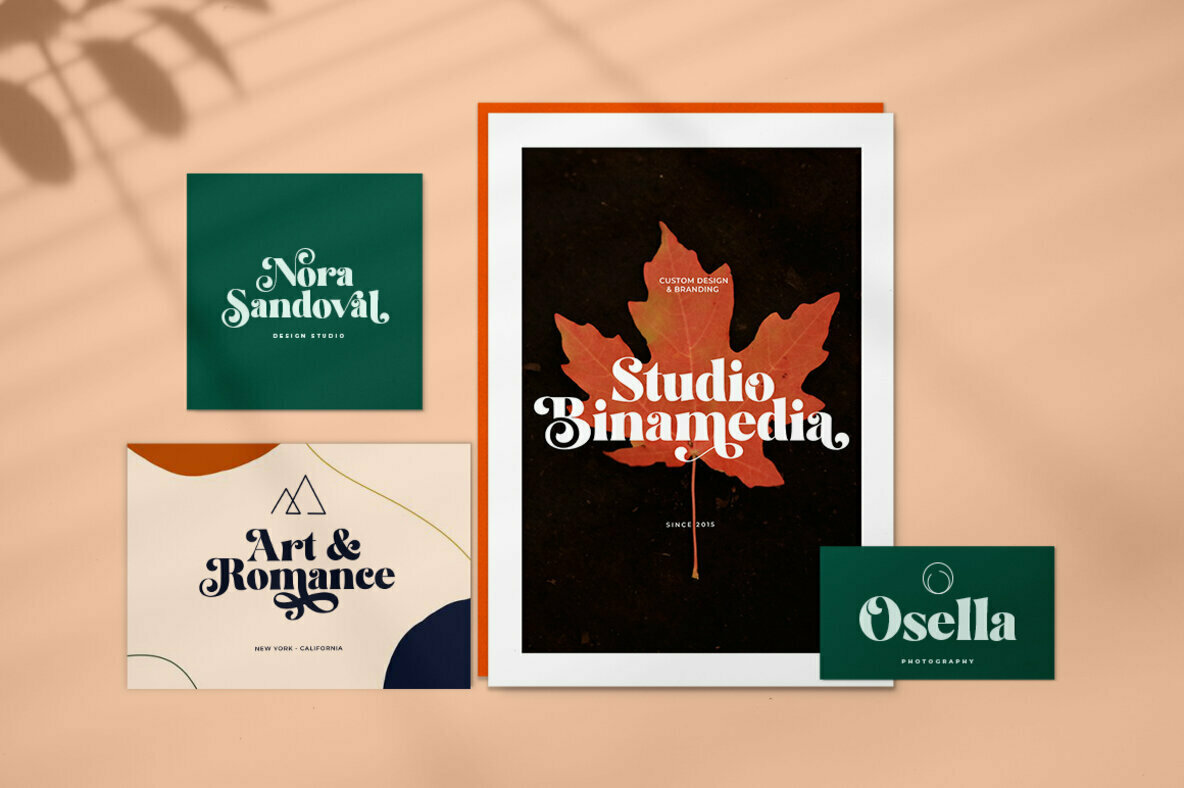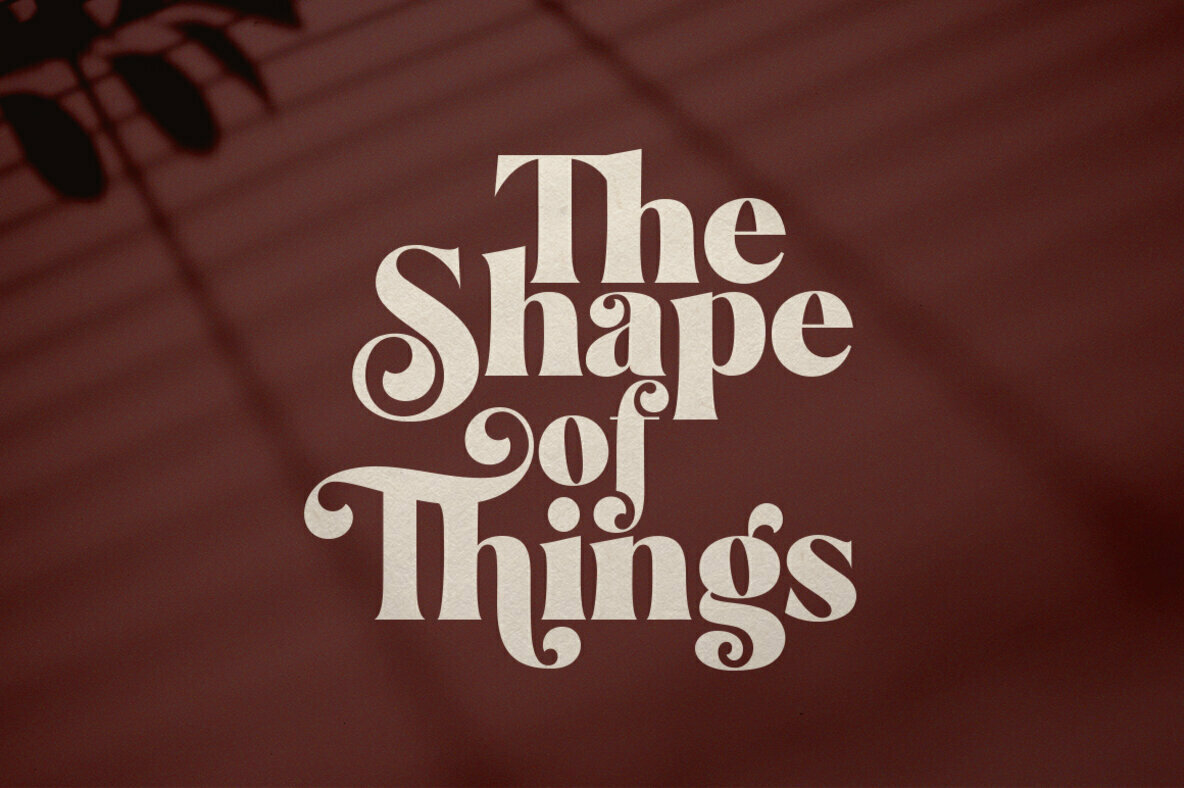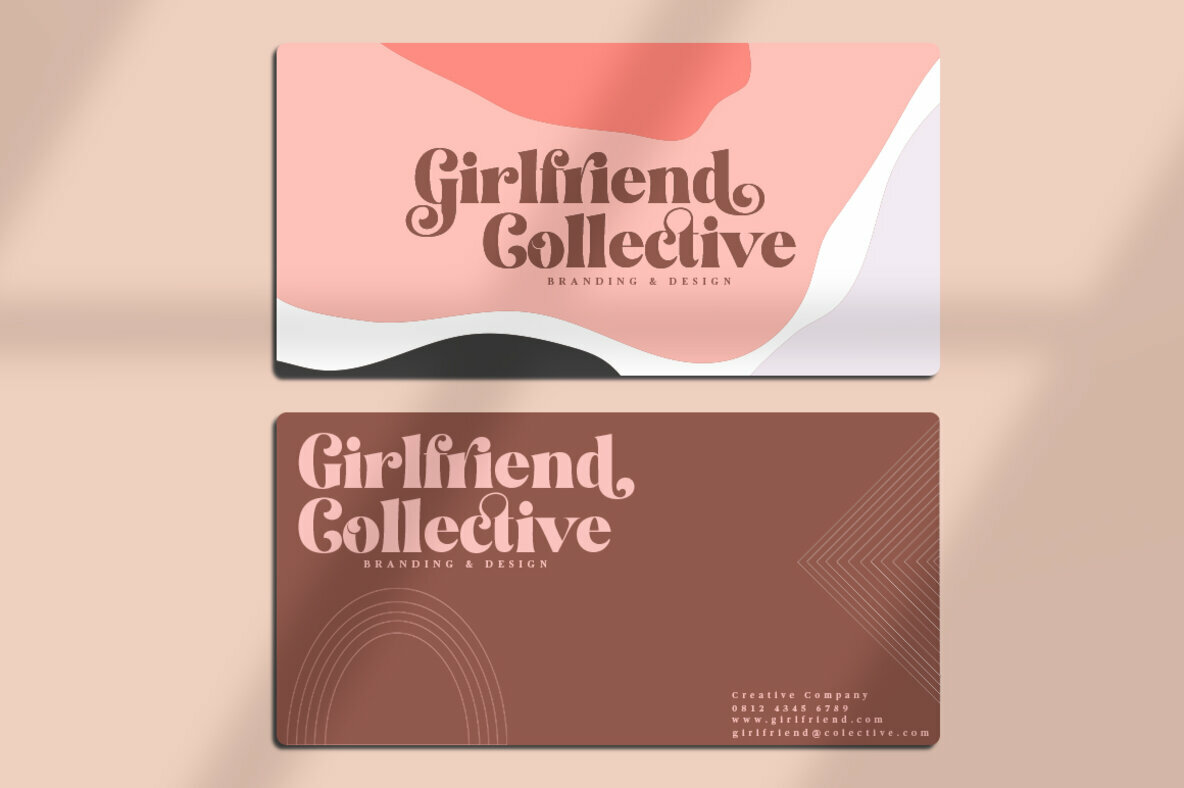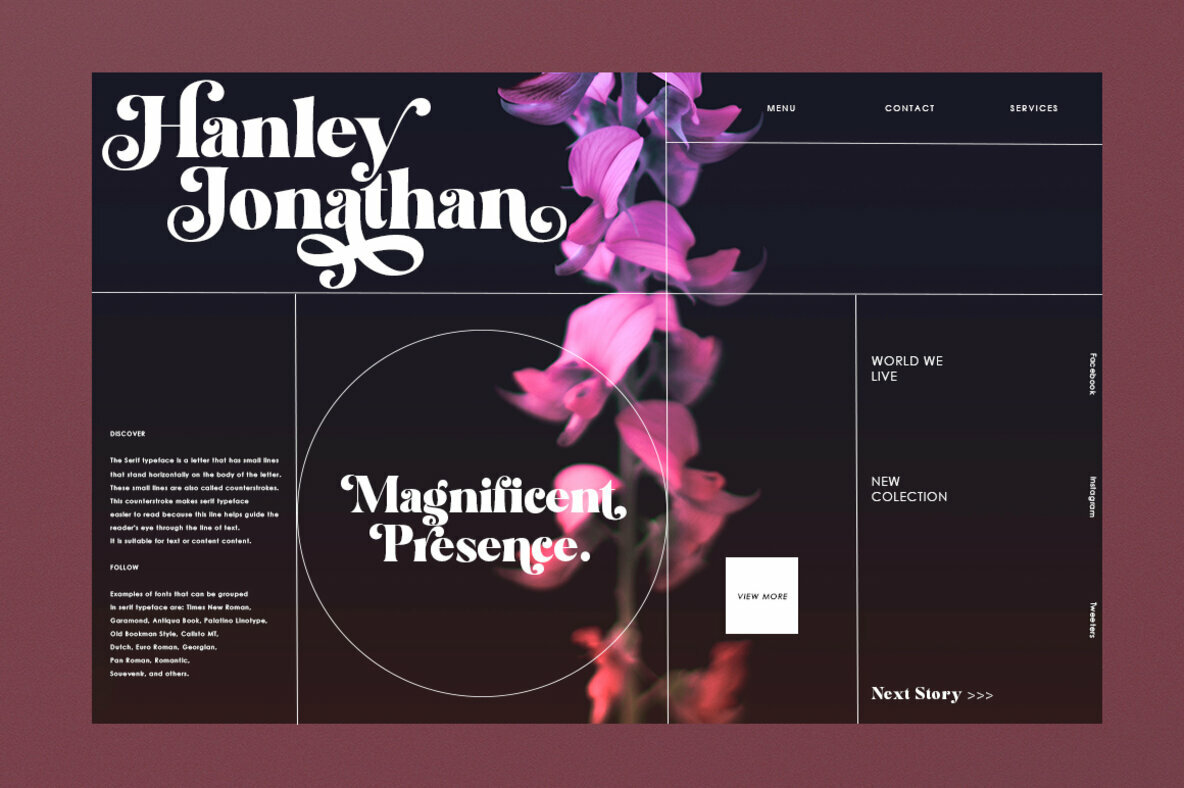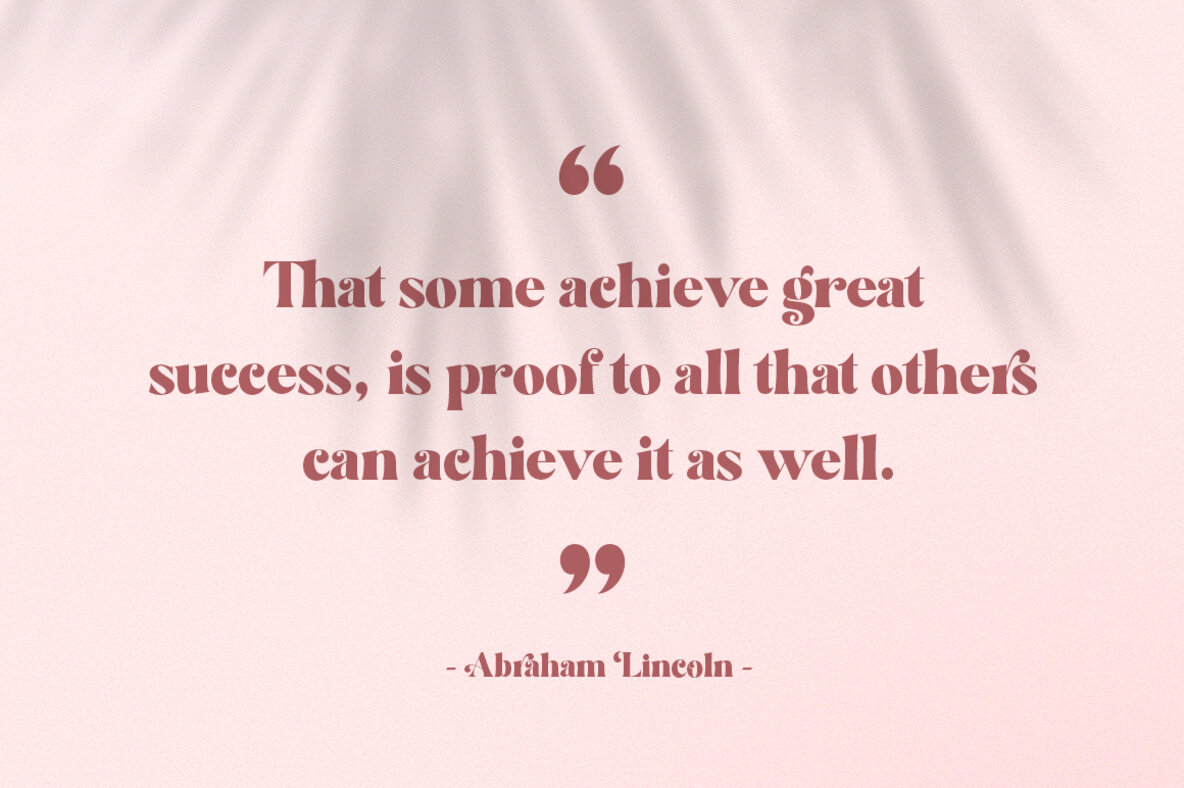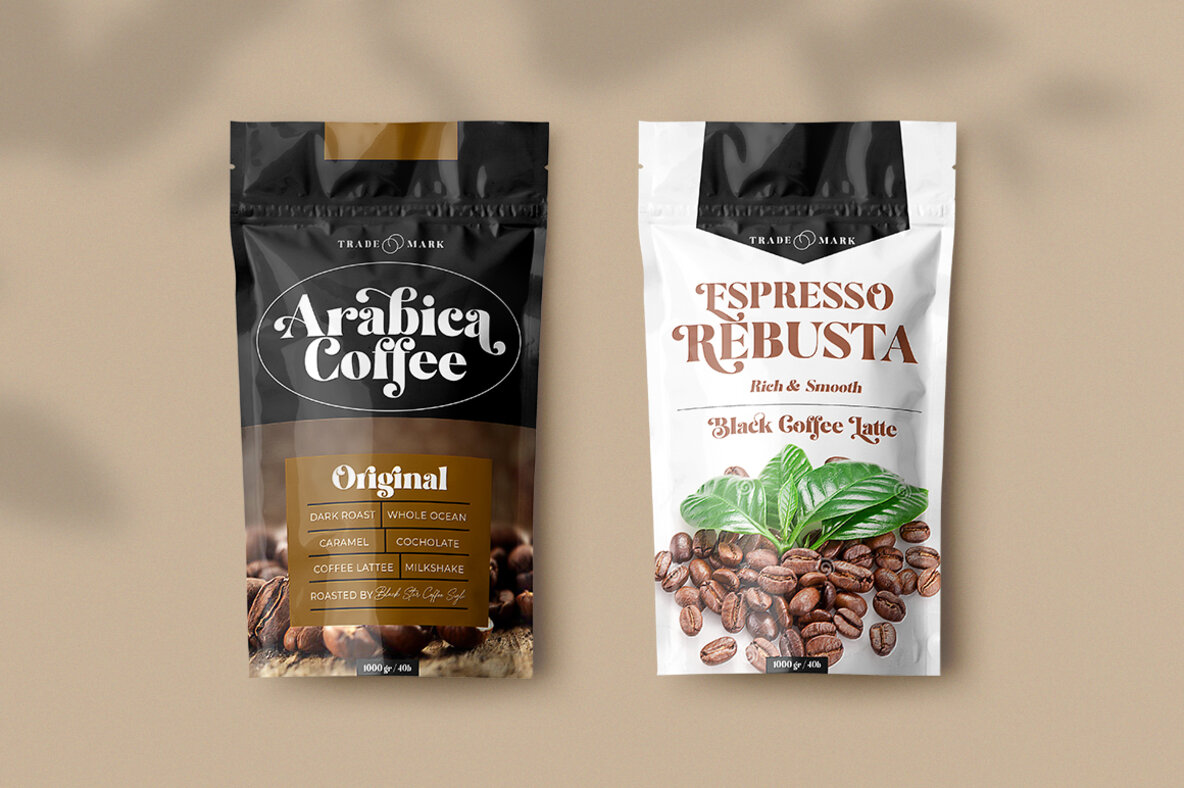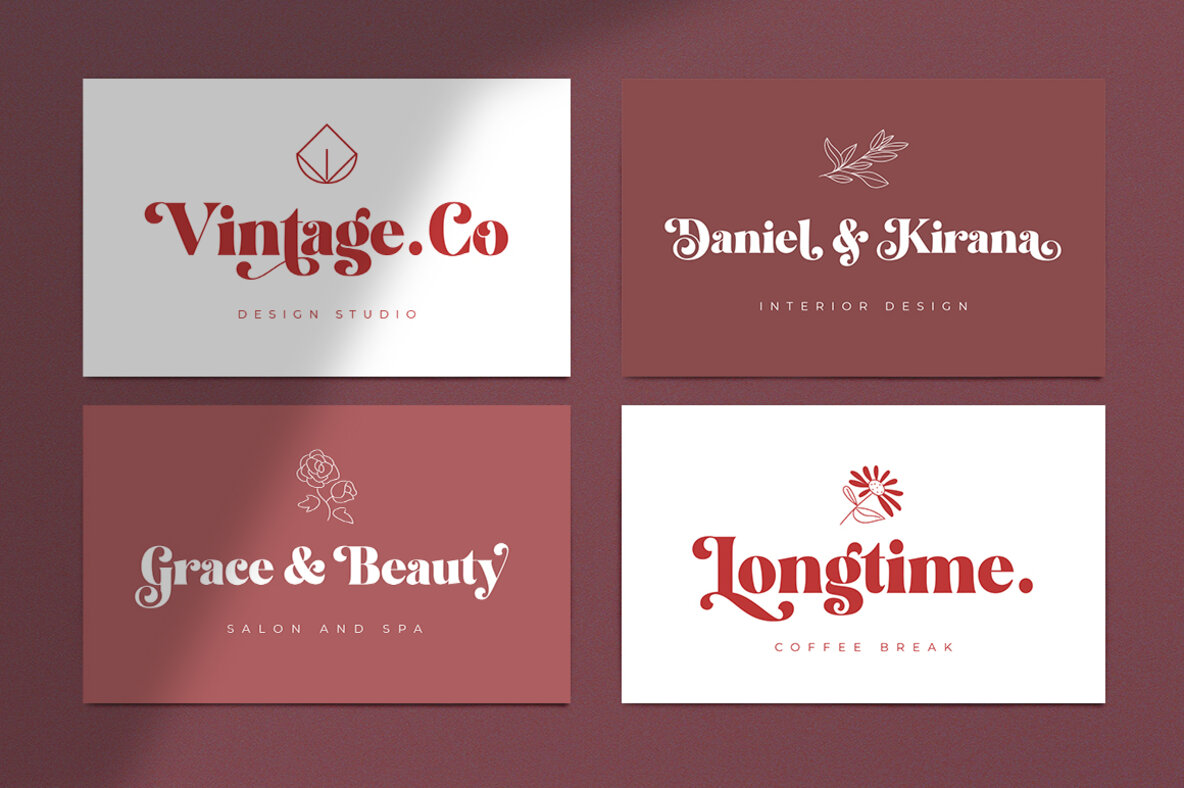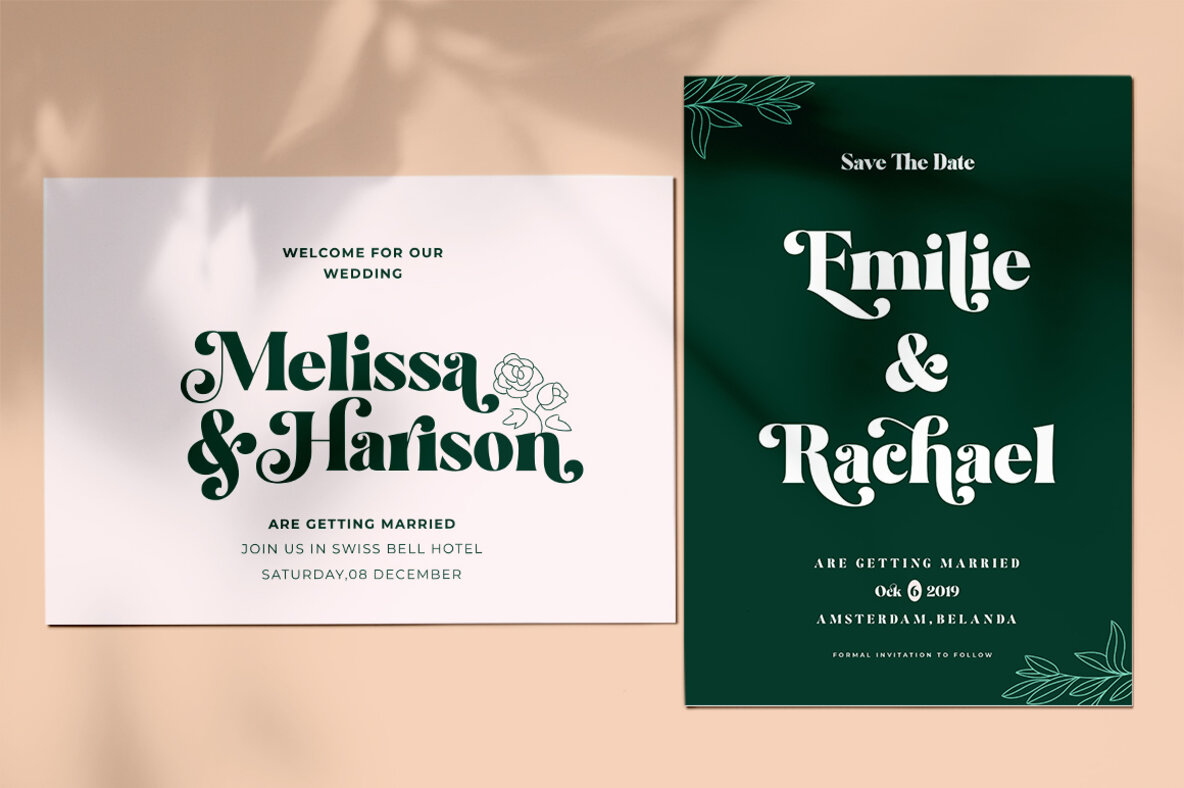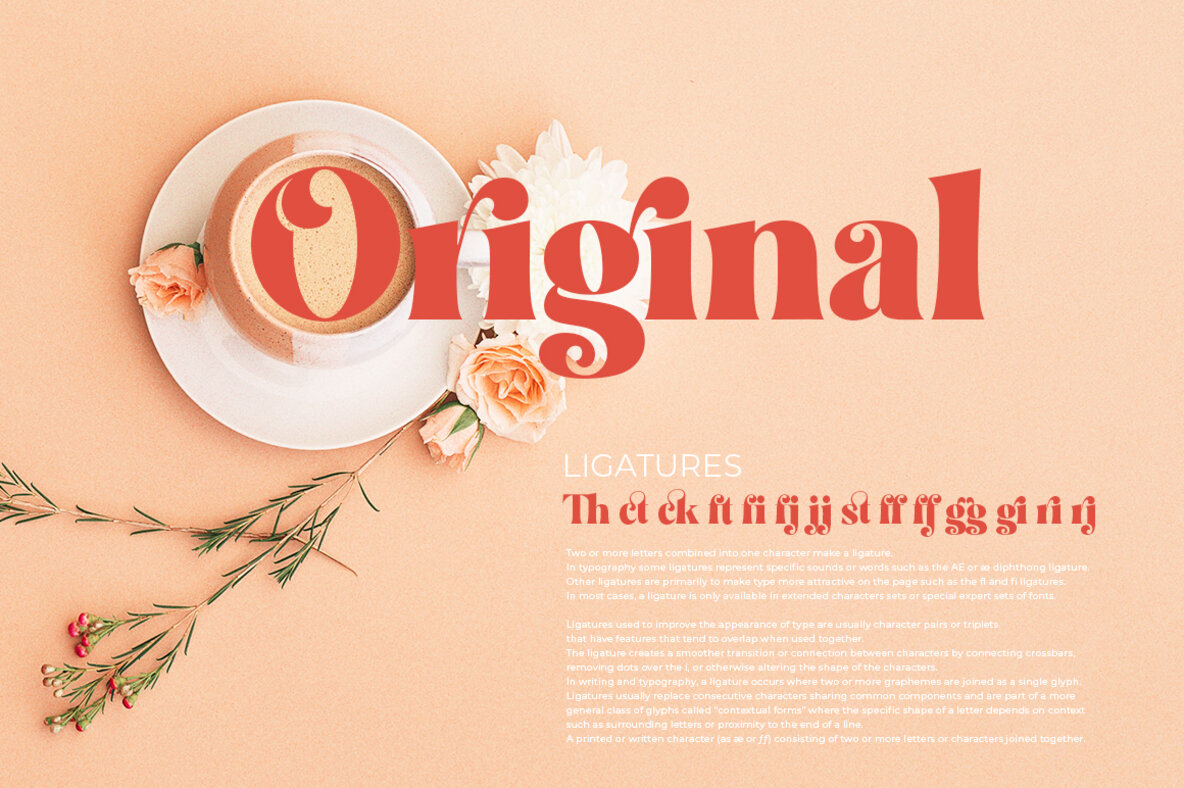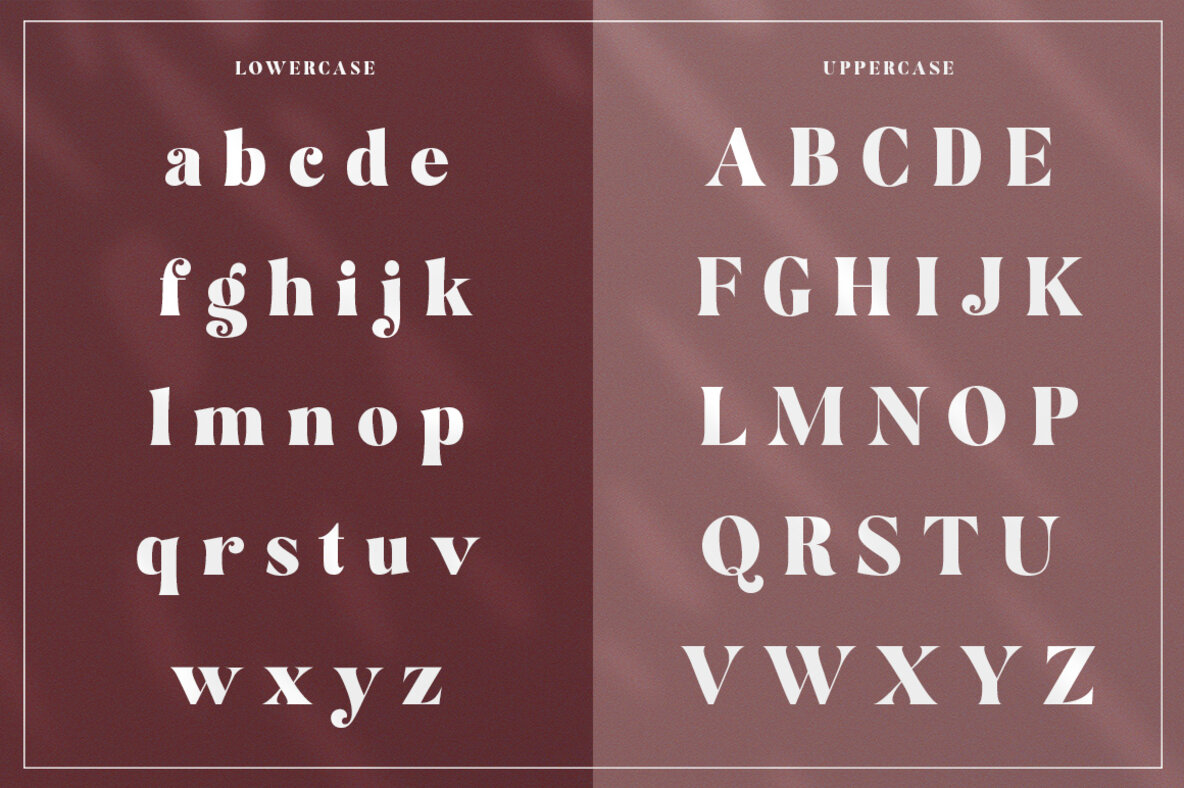
Restgold
Restgold is a modern serif typeface that expertly blends elegance and expression, making it versatile for diverse design projects. Its high-contrast serif features are ideal for creating distinctive characters, enhancing branding efforts, logos, wedding invitations, advertisements, and product packaging. This complete type system is adept for use in invitations, stationery, photography, and editorial designs, adding a touch of class and originality. Restgold's adaptability allows it to shine in classy, sophisticated branding and editorial projects. For optimal use, leverage Adobe Photoshop or Adobe Illustrator.Restgold: Elegant High-Contrast Serif Typeface